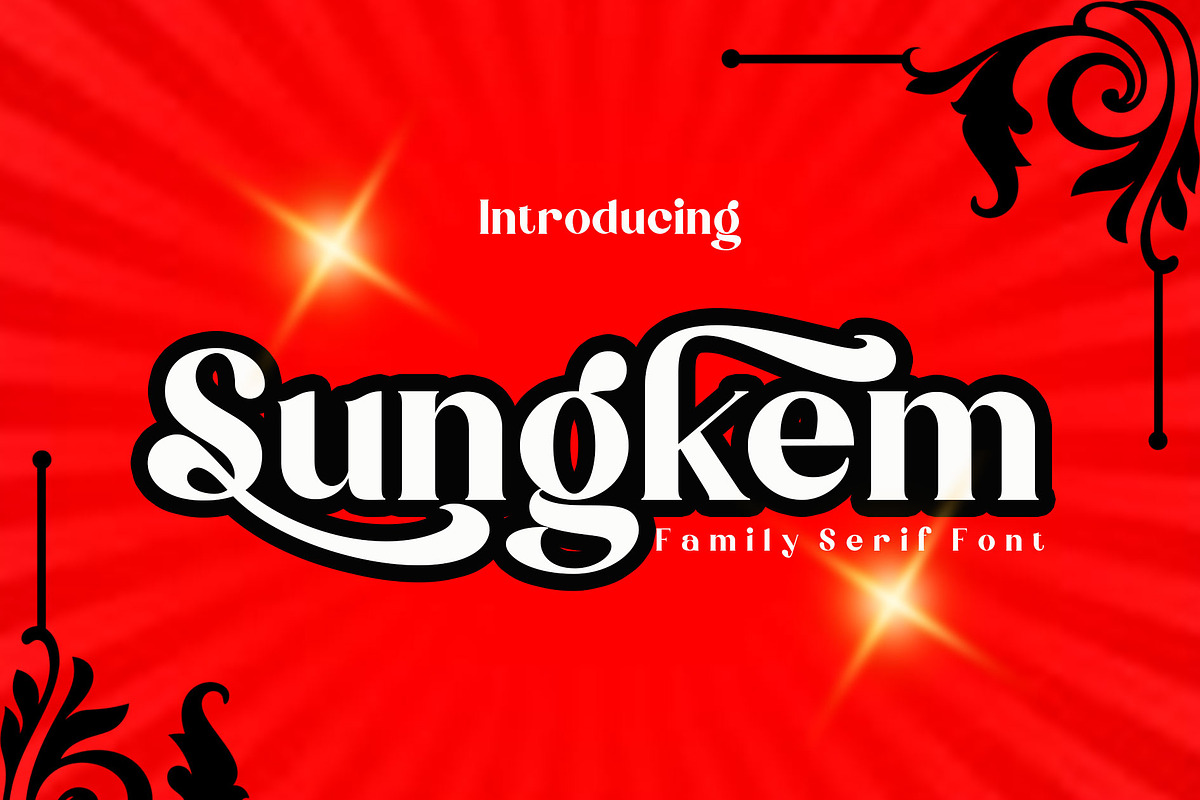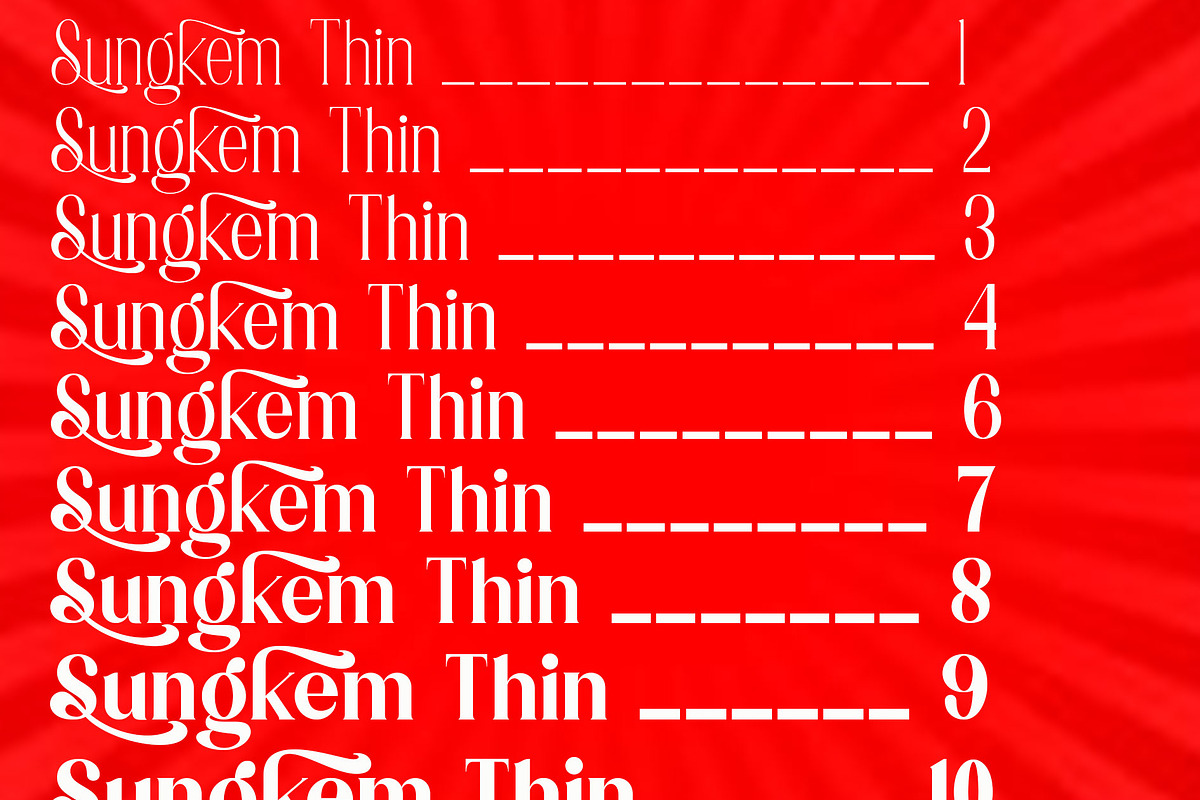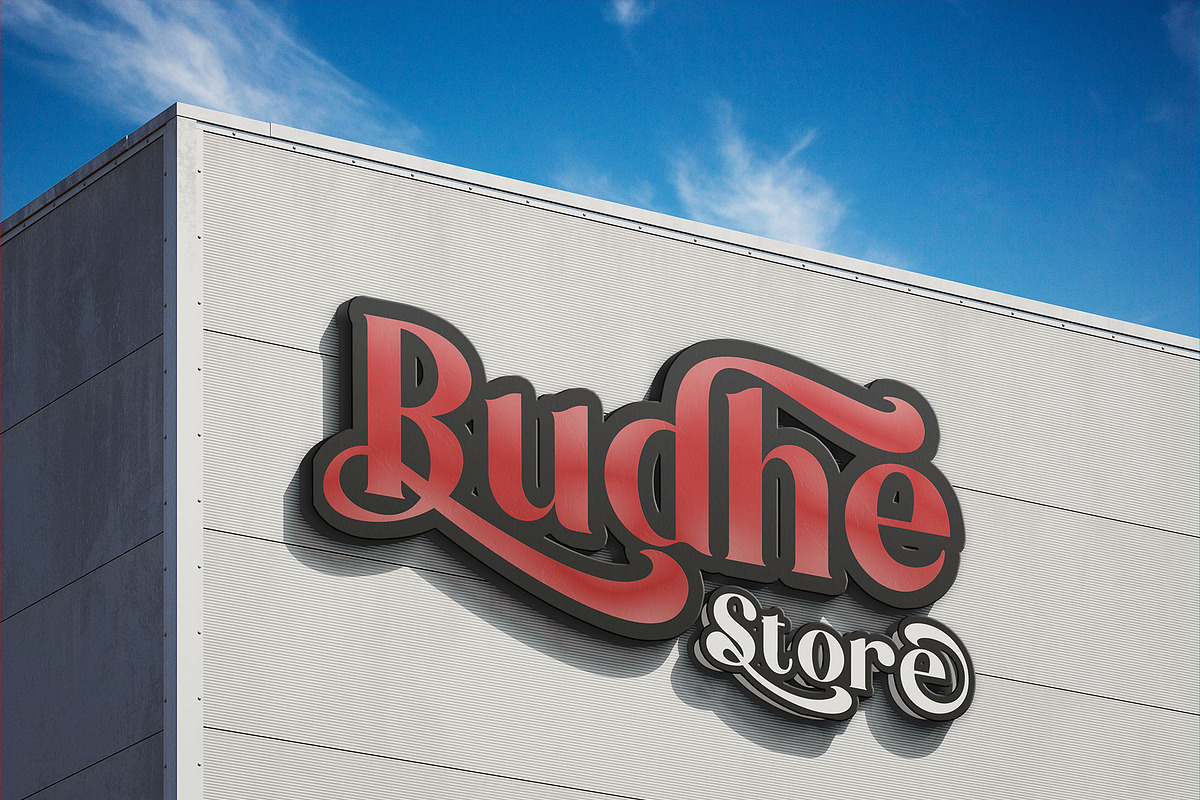
Sungkem Family Serif
this is a stylish, bold and beautiful new Modern font that perfectly offers beautiful typographic harmony for a variety of design projects, including logos and branding, social media posts, advertisements, greeting cards, stationery designs, invitations, t-shirts, clothing , packaging, posters, and much more for other product designs. This font comes with files like. OTF, TTF, WOFF and can be used in various languages. You will not be disappointed with the results.